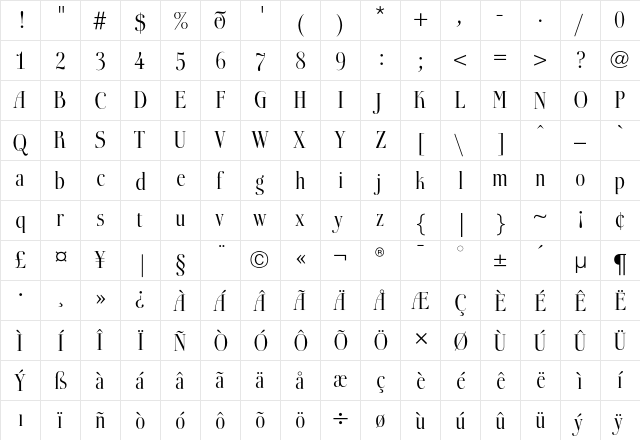
BoberiaLL Light
Design Context for BoberiaLL Typeface
BoberiaLL is a composed and adaptable typeface that performs quietly and consistently across a wide range of design contexts. The delicate stroke weight brings airiness and refinement to layouts.